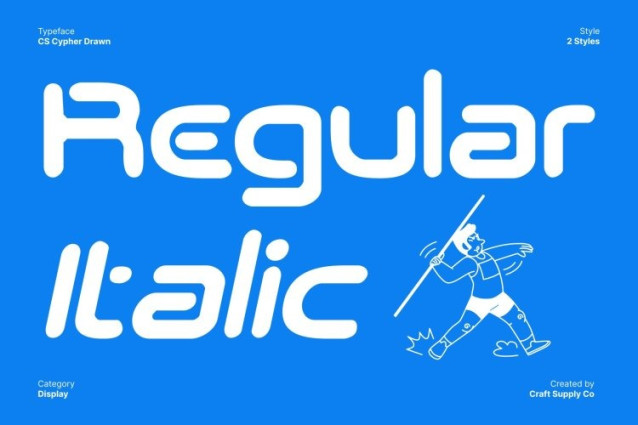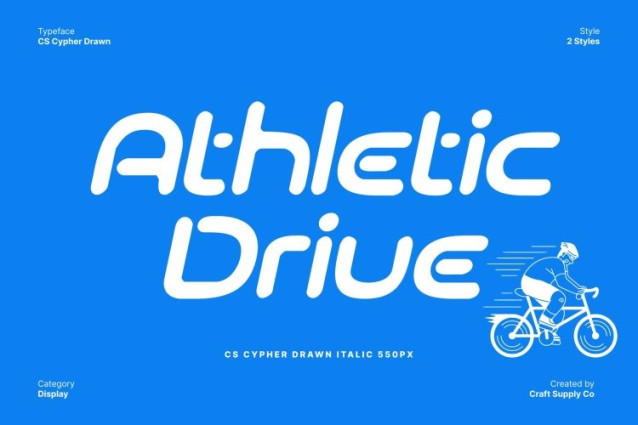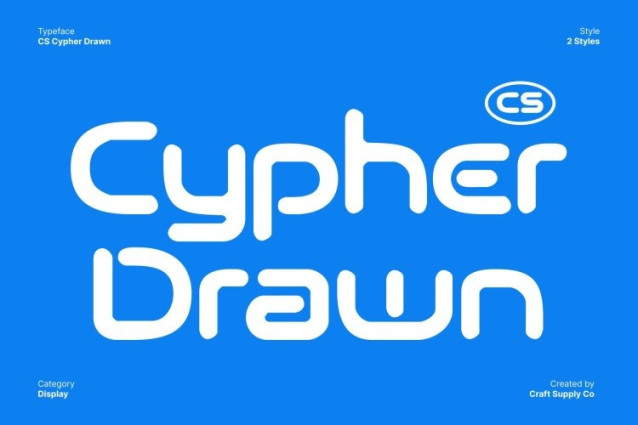
CS Cypher Drawn Font
CS Cypher Drawn Font – This is a sleek sci-fi game display font built from precise techno geometry and sharp, angular edges. Its futuristic construction delivers a bold, high-tech impression that feels fast, digital, and forward-looking. Each character projects a sense of cyber energy, making the font instantly eye-catching and perfect for designs that demand a strong futuristic identity.
Hand-Drawn Texture for Expressive Character
The drawn texture introduces a handmade layer that softens the rigid geometry with organic imperfections. This subtle roughness adds depth and personality, giving the font a more expressive and artistic feel without losing its sci-fi precision. The contrast between clean tech shapes and drawn details creates a unique visual tension.
Bold Sci-Fi Presence with Artistic Depth
By blending sharp techno forms with a hand-drawn finish, balances digital intensity and creative expression. It feels both mechanical and human, making it especially effective for experimental or narrative-driven designs that need character beyond pure minimalism.
Perfect for Games, Cyber Interfaces, and Movie Branding
This font excels in video game titles, cyber-themed interfaces, sci-fi posters, and movie branding. Its futuristic structure and expressive texture help create immersive visuals that feel dynamic, edgy, and handcrafted ideal for projects that live in a high-tech, imaginative world.